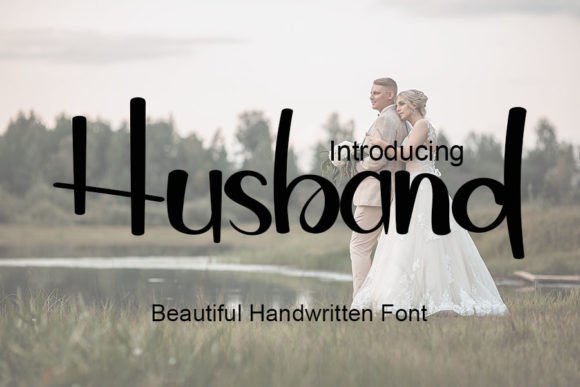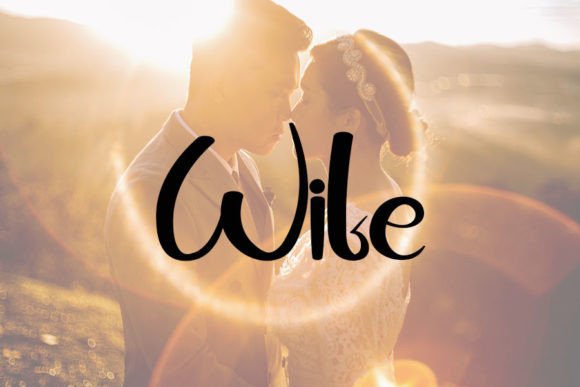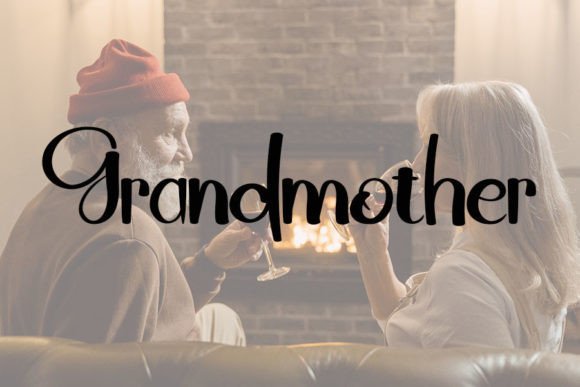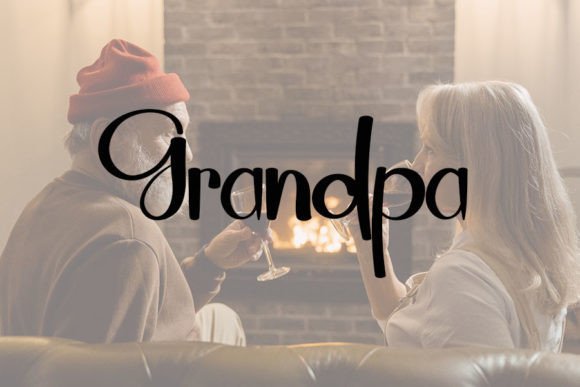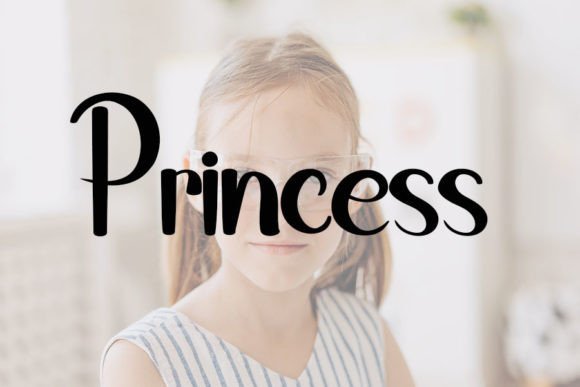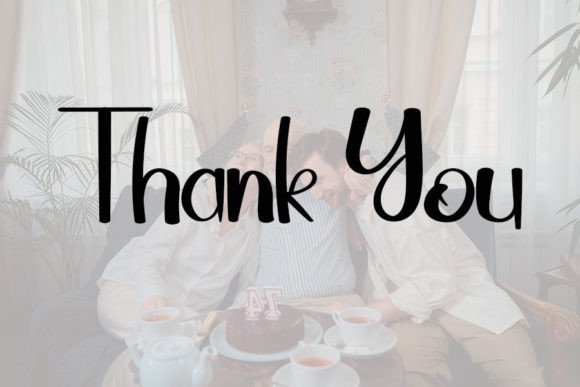
**Husband: A Timeless and Elegant Handwritten Font**
*Husband* is a beautifully crafted handwritten font that effortlessly combines elegance with a timeless style. This font brings a touch of sophistication to your creative projects and is perfect for a wide range of design applications.
The most striking feature of Husband is its elegance. The letters are meticulously designed with a delicate touch, giving your text a refined and upscale appearance. This font adds a sense of class and sophistication to your work, making it suitable for various contexts.
Husband’s distinct style sets it apart from other fonts. It has a unique charm that captures attention and leaves a lasting impression. The individual characters are beautifully balanced, making this font a standout choice for any project where aesthetics matter.
One of the key strengths of Husband is its versatility. It’s well-suited for a variety of creative endeavors, from elegant wedding invitations to upscale branding and everything in between. This flexibility ensures that Husband can be your go-to font for different design needs.
When used in wedding invitations and stationery, Husband shines brightly. Its elegant and timeless style perfectly complements the romantic atmosphere of weddings. Whether you’re designing invitations, thank-you cards, or wedding signage, Husband adds a touch of sophistication that reflects the importance of the occasion.
In branding and logo design, Husband can help create a memorable and refined visual identity for businesses and products. Its elegant letterforms convey professionalism and trustworthiness, making it an excellent choice for luxury brands, boutique businesses, and high-end products.
For editorial and print materials, Husband’s timeless style ensures that your content will have a lasting appeal. Whether it’s a magazine layout, book cover, or marketing collateral, this font adds a touch of elegance that elevates the overall design.
The distinct and well-balanced characters of Husband make it an ideal choice for any project that values aesthetics and attention to detail. It can be confidently used for headlines, quotes, advertisements, and any text element that requires an elegant touch.
In summary, *Husband* is a neat and beautiful handwritten font that embodies timeless elegance. Its versatility makes it suitable for a wide range of design projects, where its distinct style and sophistication will undoubtedly create spectacular results. Fall in love with Husband’s charm and use it to enhance the beauty of your designs.